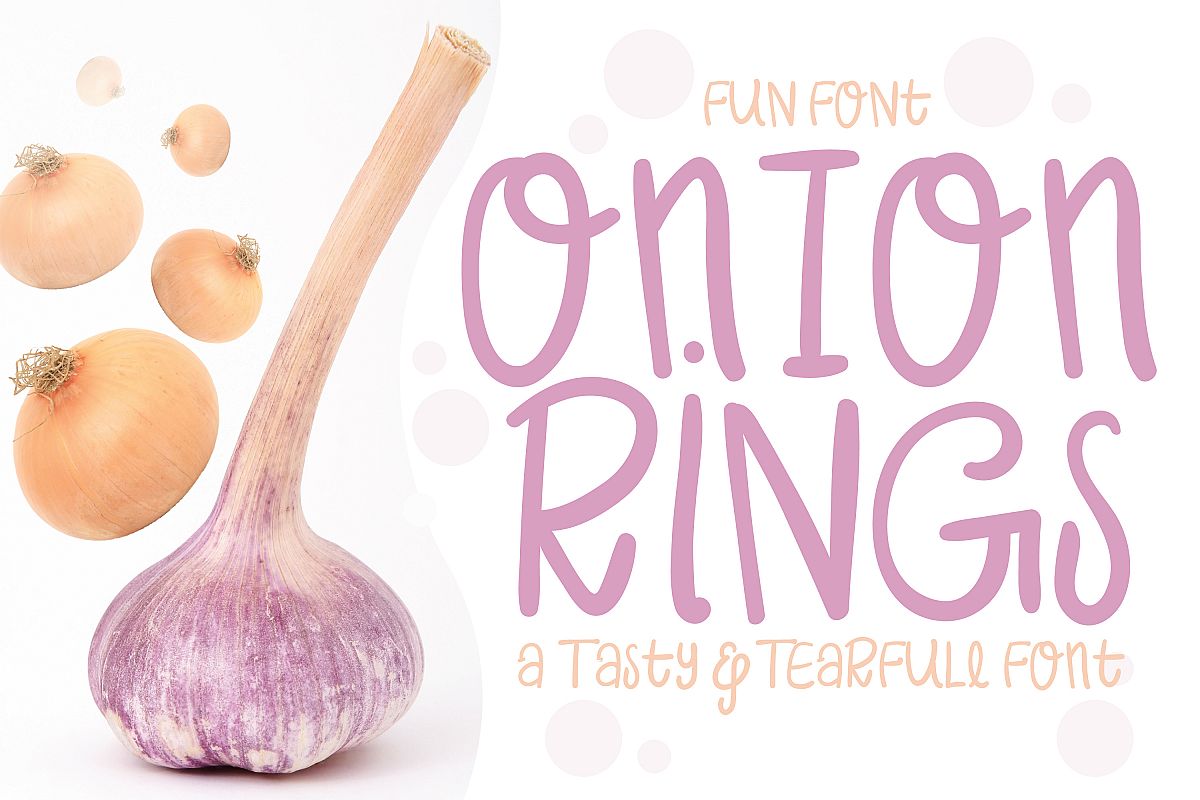
Onion Rings - Cute Tearful Font for You!
Presenting Cute hand drawn font that you will love for sure! Take a close look and see what you can make with this stunning little fonts containing letters and alphabets that is mostly needed. Let's see features!
- Hand Crafted 100%
- Upper and Lowercase
- Numbers also included with some basic keys